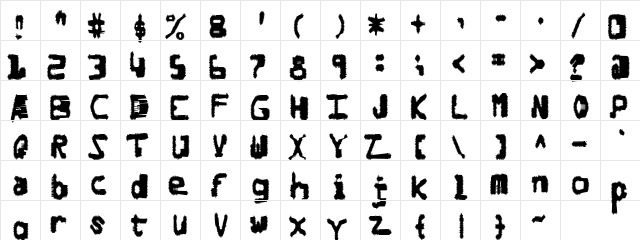
Degraded Chip Creep Regular
Design Context for Degraded Chip Creep Typeface
Degraded Chip Creep carries an unsettling edge — its distorted letterforms are built to unsettle, perfectly suited to horror, Halloween, and dark creative work.
Ideal for Halloween projects, horror film titles, haunted house signage, and dark editorial design.
Font Pairing: Pair with a clean neutral sans-serif for body copy to let Degraded Chip Creep's character lead without overwhelming the composition.
Pro Tip: Degraded Chip Creep works best as a headline or focal element. Pair it against plain, neutral body text to amplify the contrast.